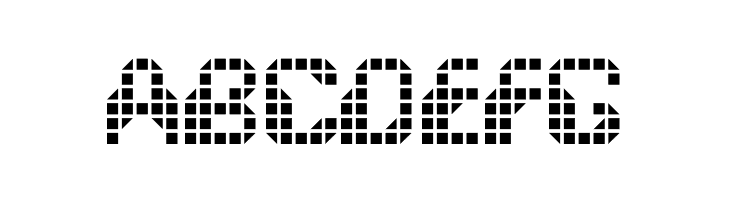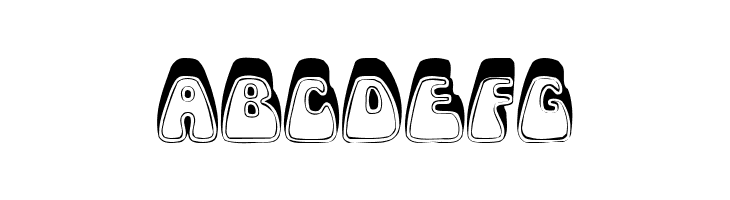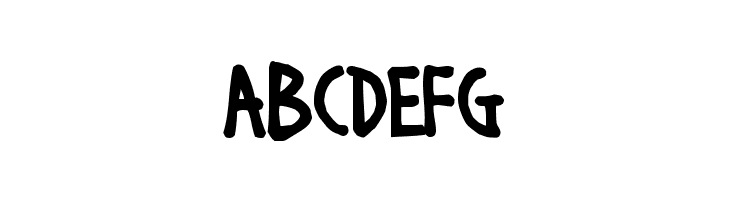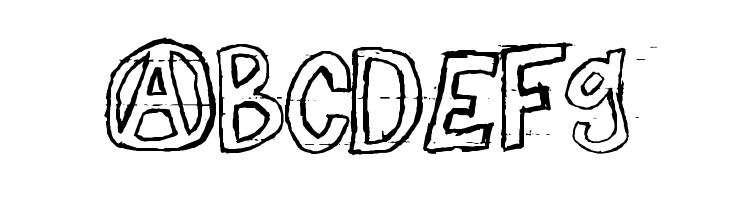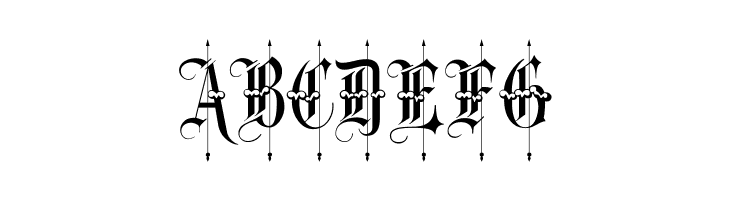
A pixelated, retro-style font reminiscent of early digital displays.
An ornate and decorative font with intricate patterns and a vintage flair.
A bold, wavy font with a psychedelic, retro feel.
A bold, handwritten font with a playful and informal style.
A bold, hand-drawn font with a rebellious, sketch-like style.